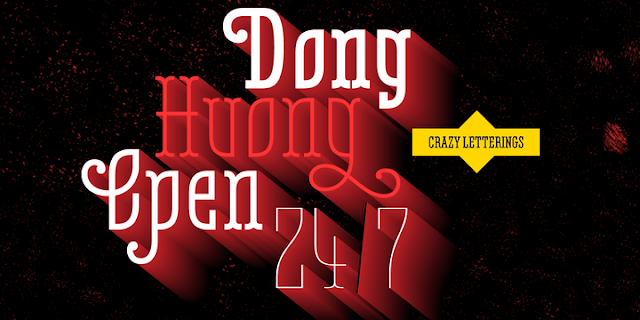
[Retro] Belleville FY Regular và Light Việt hóa
Thông tin về font Belleville FY
Belleville FY is an original 16 retro and modern fonts family, inspired at the same time by New art mouvement, graffitis, 19th century wood type, and modern slab fonts.
Each style has specific shapes and serifs which give it a special look, depending of the mood you choose. Because each of them is based on the same structure, you can easily mix them to create unique sets, offering you endless possibilities.
Belleville is well suited for logos, headlines, packaging, posters, signage and every project you want.
Designers: Benjamin Lieb, Gia Tran
Design date: 2014
Publisher: Fontyou